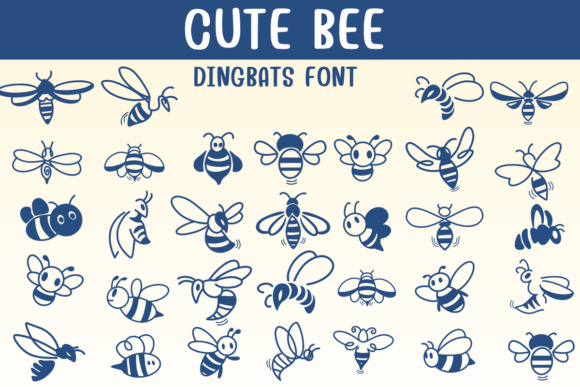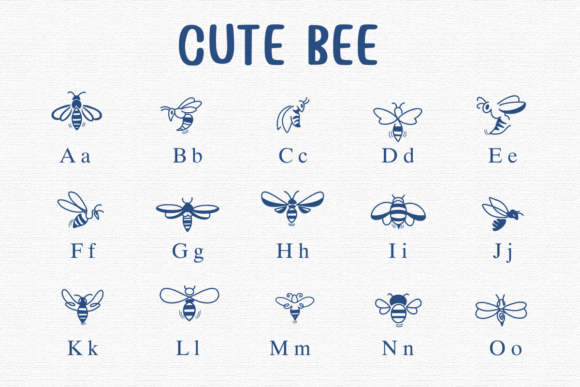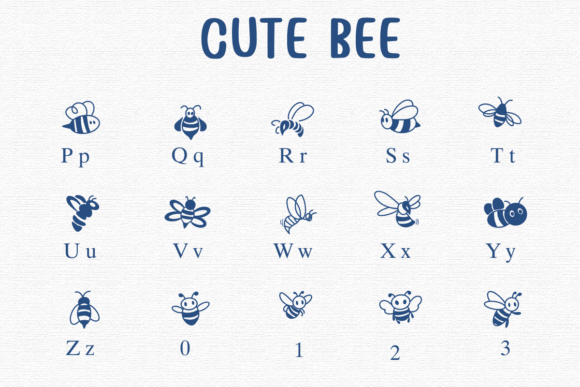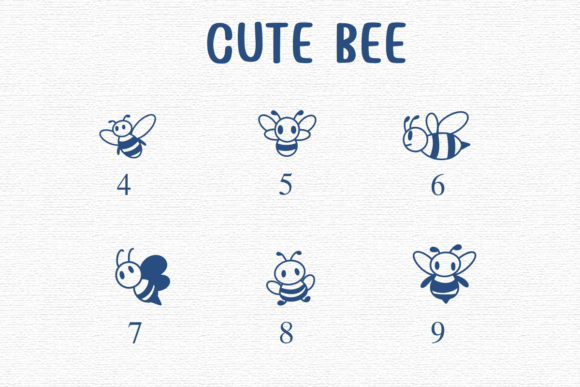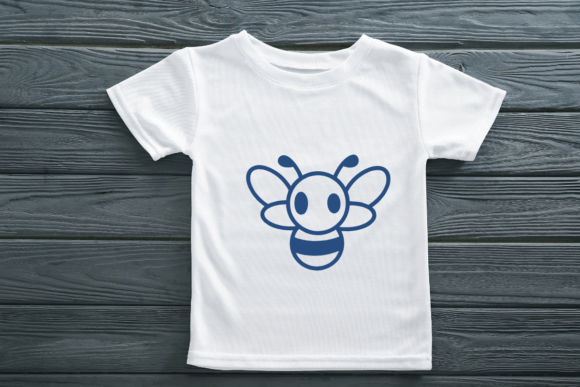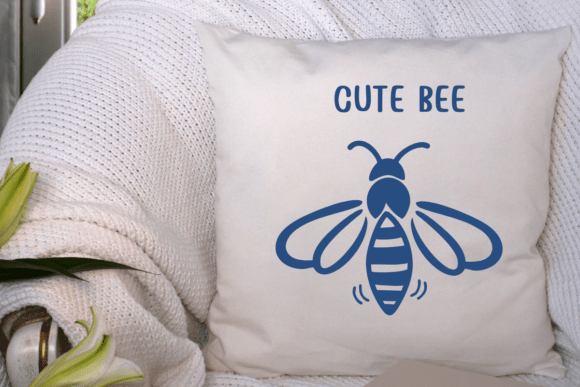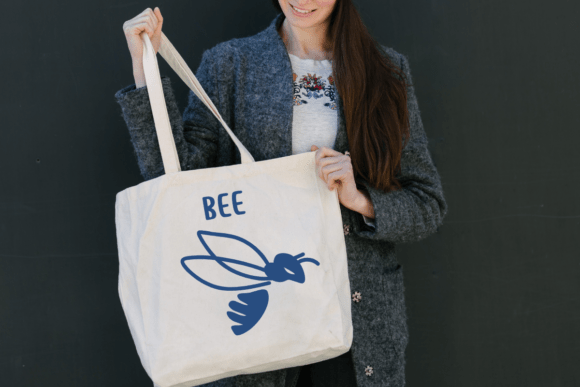
The Buzz on Cute Bee Font
Have you ever sat at your desk, surrounded by scraps of paper, glue, and glitter, trying to come up with the perfect DIY project? You’re not alone. As a creative, there’s nothing quite like the thrill of bringing a new idea to life. And, let’s be honest, a little bit of visual flair can make all the difference.
That’s where Cute Bee Font comes in – a delightful dingbats font with a sketched style that’s perfect for adding a touch of whimsy to your creative projects. From wedding invitations to DIY crafts, this font is a valuable asset for designers looking to add a personal touch to their work. With its charming, hand-drawn aesthetic, Cute Bee Font is sure to make your projects stand out from the crowd.
Whether you’re a seasoned pro or just starting out, Cute Bee Font is a must-have for any designer looking to add a little extra magic to their work.
Cute Bee Font Key Features
- Font Family: Cute Bee Font is a unique, hand-drawn font family that features adorable bee characters and symbols.
- Character Set: Includes uppercase and lowercase letters, numbers, punctuation marks, and a range of bee-themed symbols and icons.
- Unique Characteristics: Features a playful, whimsical design with intricate details and textures, making it perfect for children’s books, educational materials, and other projects that require a cute and engaging font.
Cute Bee Font Review
First off, I want to say that the Cute Bee Font has some really great qualities that make it stand out.
- ✨ It’s super playful and fun, perfect for kids’ projects or any design that needs a bit of whimsy.
- ✨ The font is highly customizable, with a range of colors and styles to choose from.
- ✨ It’s also quite legible, even at smaller font sizes, which is a bonus.
However, as with any font, there are some limitations to consider.
- ⚠️ The font can feel a bit overused, which might make it less effective for more serious or professional designs.
- ⚠️ It’s not suitable for body text, as it’s best used for headings or titles.
- ⚠️ Some users may find the font a bit too cutesy or childish, which could be a turn-off.
Overall, I think the Cute Bee Font is a great addition to any designer’s toolkit. While it may not be the best choice for every project, it’s perfect for designs that need a bit of personality and flair.
For the most effective use of Cute Bee Font, pair it with bright and playful colors. It’s ideal for:
- Children’s book covers
- Food labels
- Party invitations
- Wedding stationery
Remember to use it sparingly to avoid overwhelming the design.
Projects with a Touch of Cuteness
Cute Bee Invitation Cards